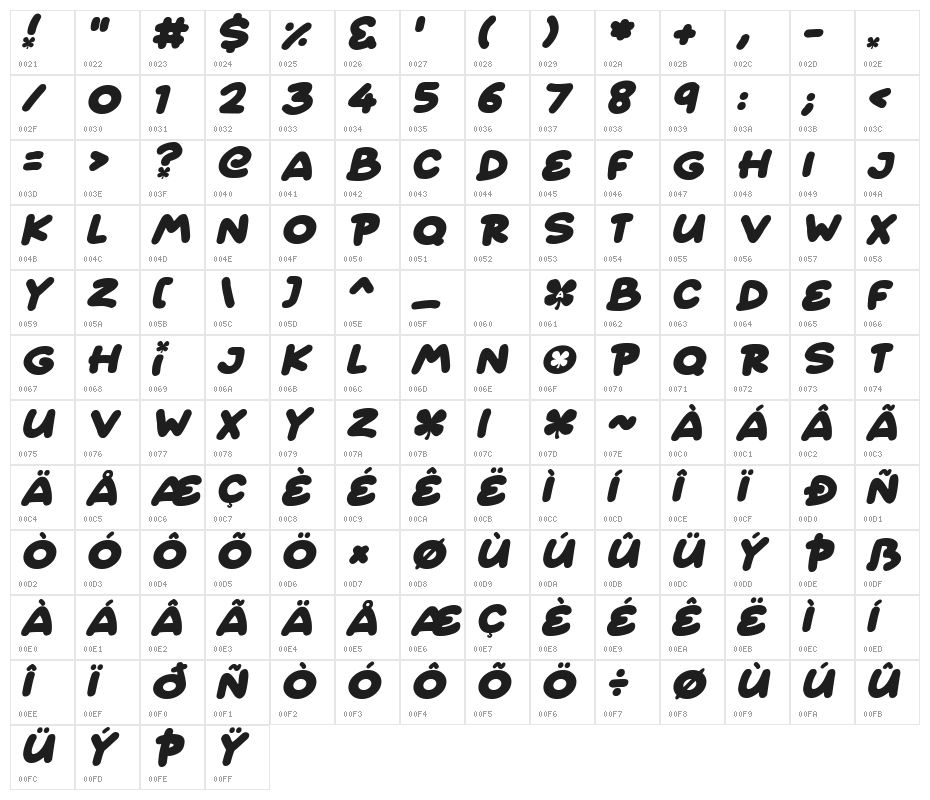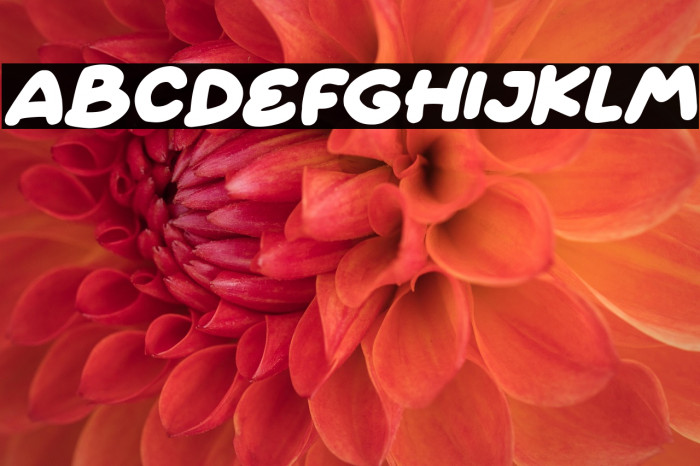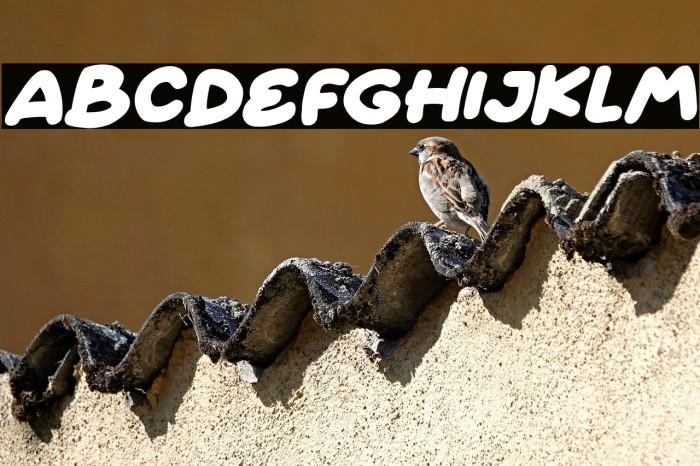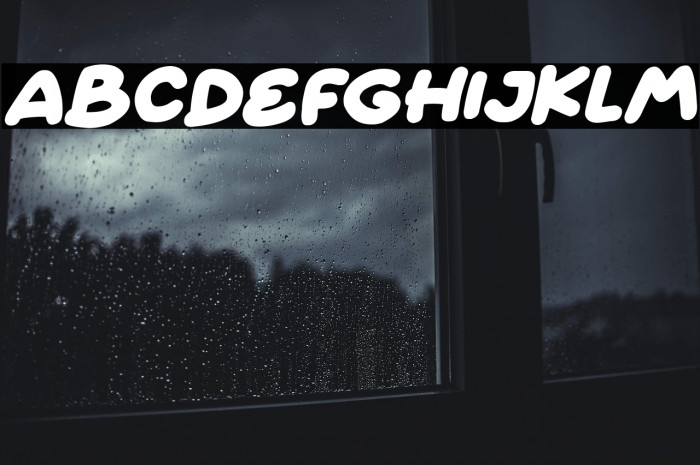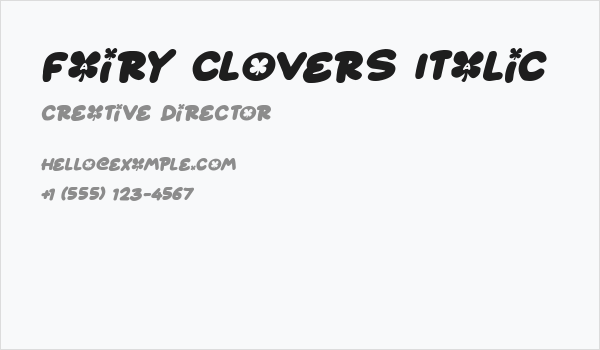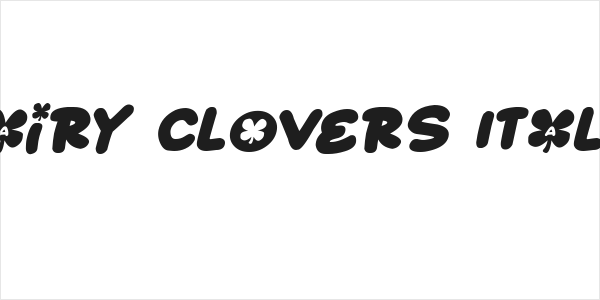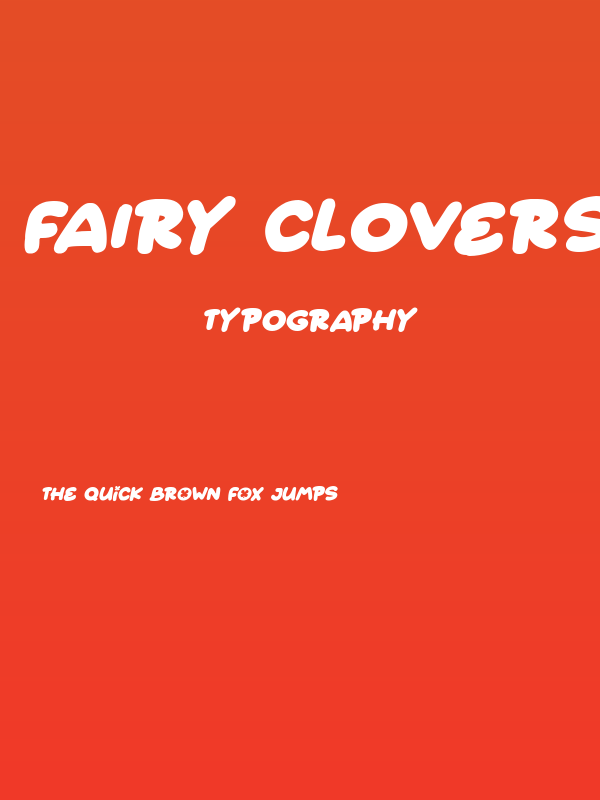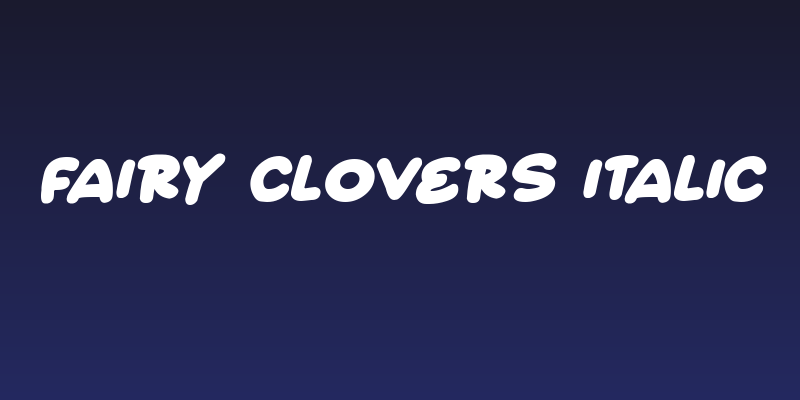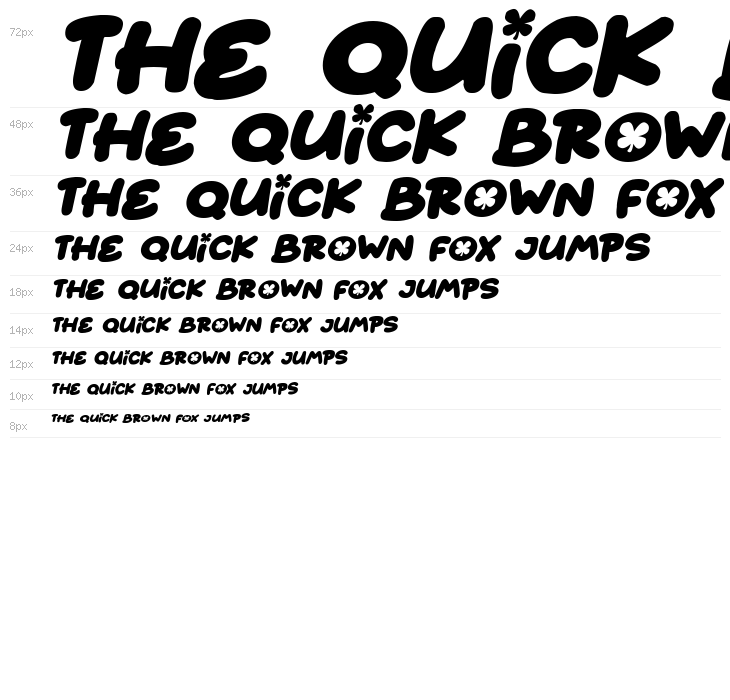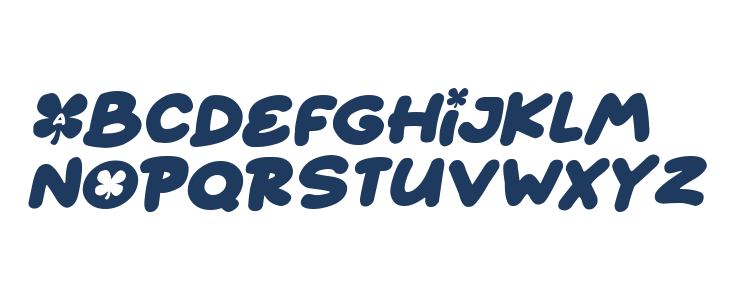
Fairy Clovers Italic Font
Fairy Clovers Italic Description
This playful and whimsical font features bold, rounded characters with a smooth, flowing style. The letters are slightly italicized, giving them a dynamic and lively appearance. The font includes both uppercase and lowercase letters, numbers, and a variety of special characters. Its unique design incorporates elements that resemble clovers, adding a touch of nature-inspired charm. The strokes are thick and consistent, providing a strong visual impact while maintaining a friendly and approachable feel.
| Use Case | Logos, Posters, Greeting Cards |
| Proposed Projects | Ideal for children's books, playful branding, greeting cards, and whimsical posters. |